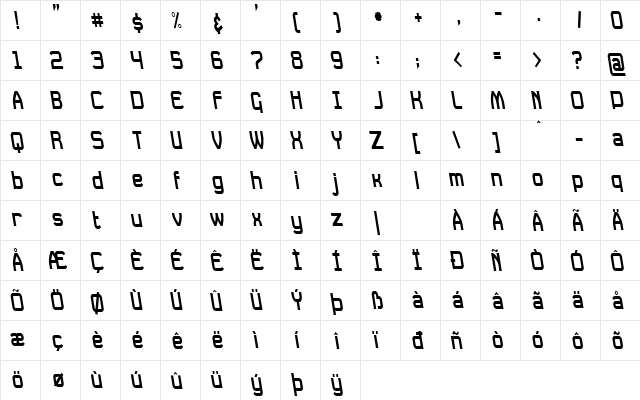
Daville Condensed Rev Slanted Normal Font Preview
Design Context for Daville Condensed Rev Slanted Typeface
Daville Condensed Rev Slanted offers clean, dependable letterforms without strong stylistic allegiance, making it a practical choice for designers who need flexibility. The slanted form adds forward momentum and visual energy. Its narrow stance lets it pack a punch even in space-constrained designs.
Pro Tip: Use Daville Condensed Rev Slanted for emphasis, pull quotes, and subheadings where its slanted energy can add rhythm to the layout.